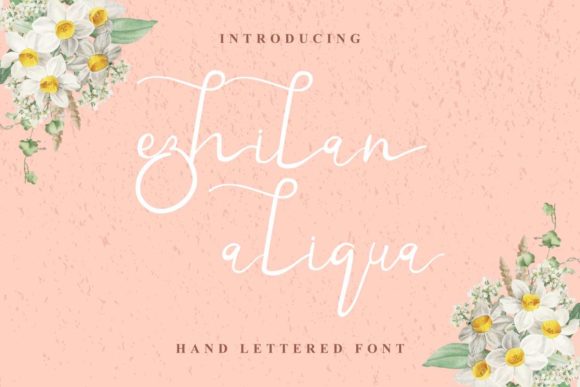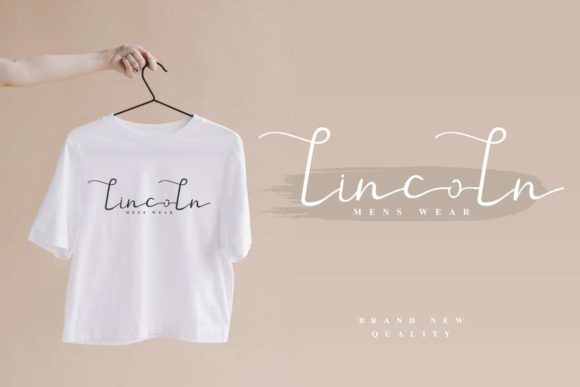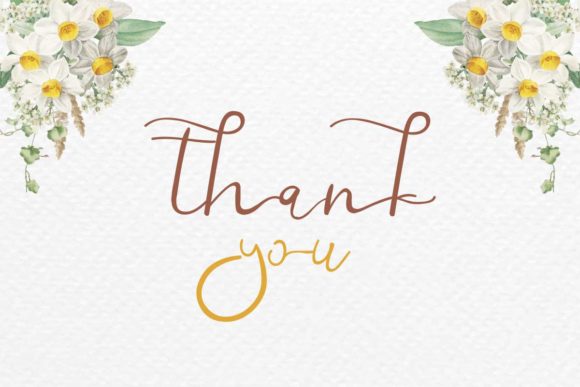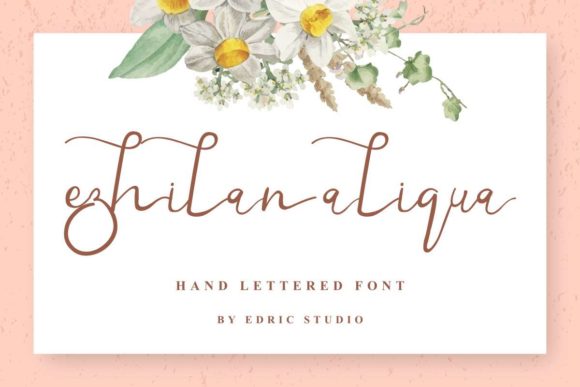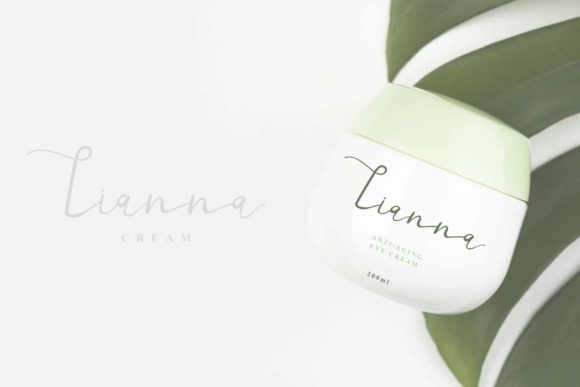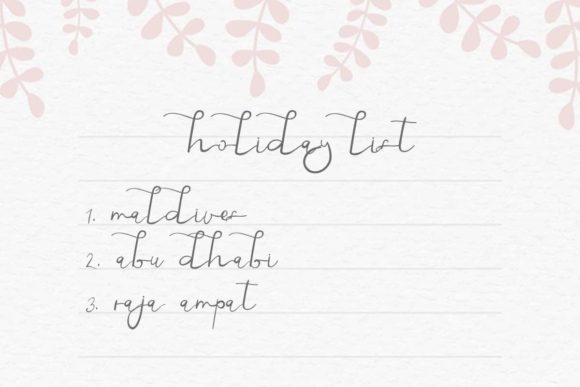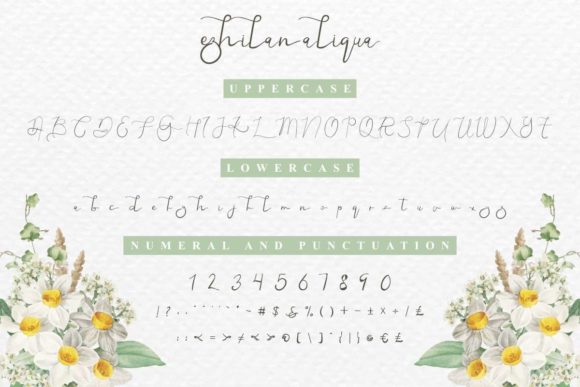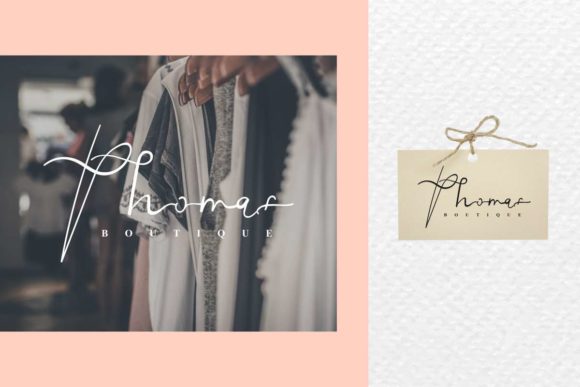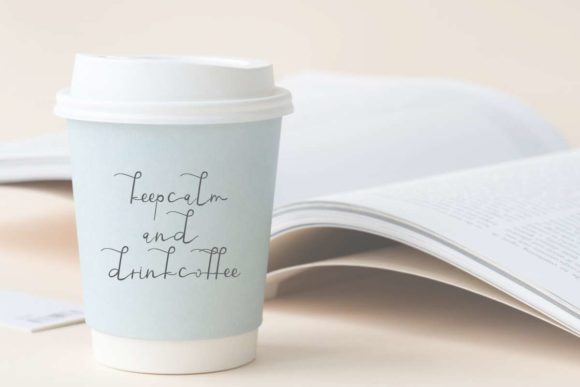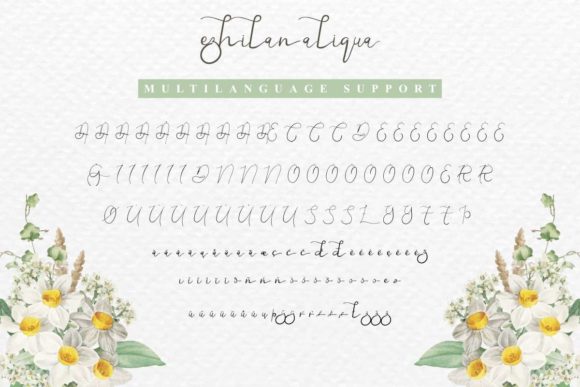
Ezhilan Aliqua Font
About Ezhilan Aliqua Font
Ezhilan Aliqua is a sweet, soft hand-lettered script font. It will elevate a wide range of design projects to the highest level, be it branding, headings, wedding designs, invitations, signatures, logos, labels, and much more!